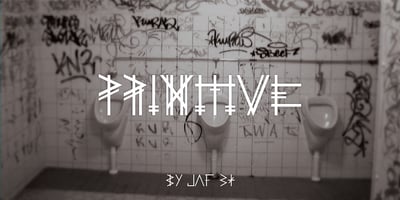
PRIMITIVE
PRIMITIVE font
PRIMITIVE Font Family was designed by JAF 34 and published by JAF 34. PRIMITIVE contains 2 styles and family package options. PRIMITIVE is an attempt for an essential of urban culture, especially graffiti and the unique pixaçao. PRIMITIVE is also inspired by the ancient cultures, especially scandinavian tribes as an anagram to the present. This “vandalism” is viewed from several angles. PRIMITIVE is one of them. PRIMITIVE is one of the modern headline fonts which include a lot of alternates, a variation of one word for a comfortable use. Two weights, ligatures and stylistic sets are obvious. And this cheap price is a support to this independent culture from me.